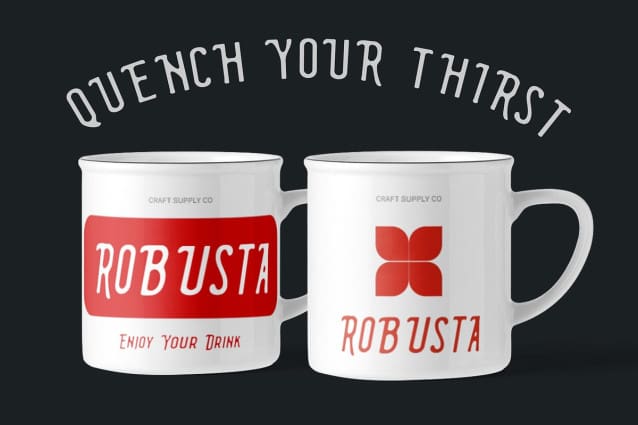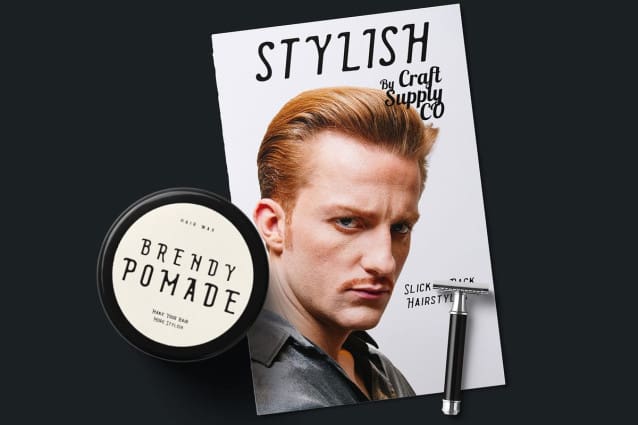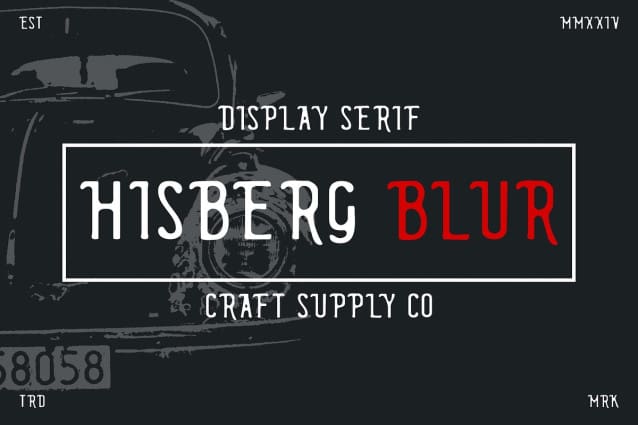
Hisberg Blur Font
Hisberg Blur Font: Retro Vibes with a Blurred Twist. Retro-Inspired Display Font Hisberg Blur captures the essence of retro design with its nostalgic aesthetic. The font exudes vintage charm and adds a touch of nostalgia to any project.
Blur Effect With its unique blur effect, This font simulates the appearance of ink spreading on paper. This distinctive feature gives the font a soft and fluid look, reminiscent of traditional printing techniques.
Perfect for Retro Designs Ideal for projects seeking a retro vibe, This font stands out with its blurred appearance. Whether used in display posters, advertisements, or branding materials, it adds a nostalgic flair to any design.
Versatile Application Despite its retro-inspired look, This font is versatile and can be used across various design applications. From digital media to print materials, it adds a unique touch to any creative endeavor.
Nostalgic Elegance with a Modern Twist This font combines retro aesthetics with a contemporary blur effect, offering designers a versatile font for projects requiring a touch of nostalgia. With its soft and fluid appearance, Hisberg Blur brings a unique charm to any design.